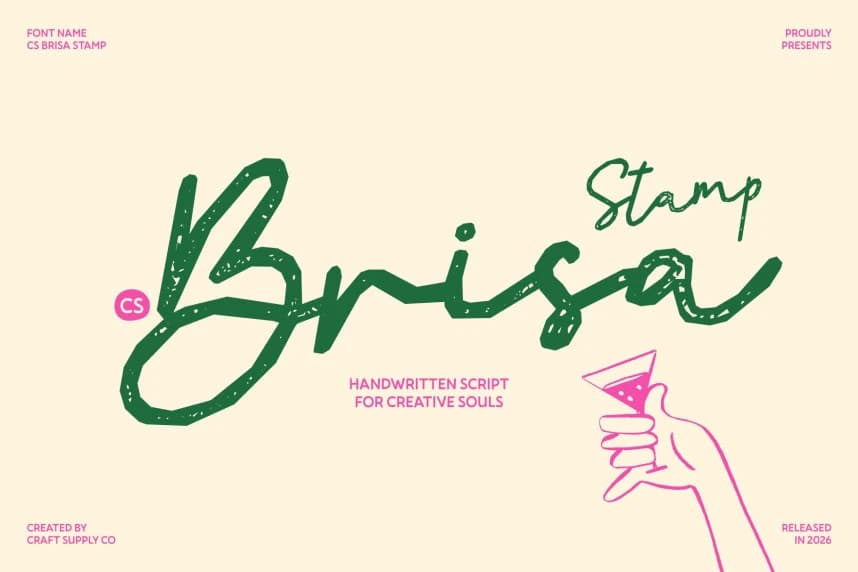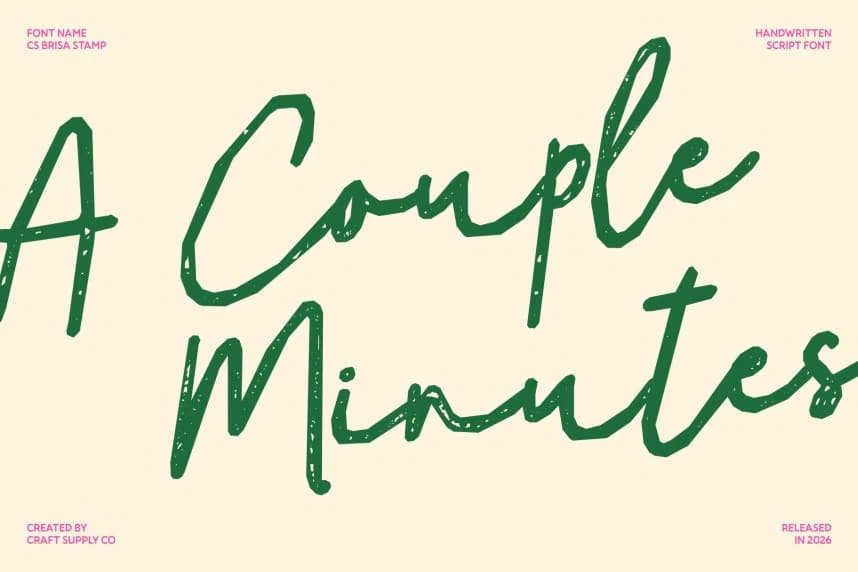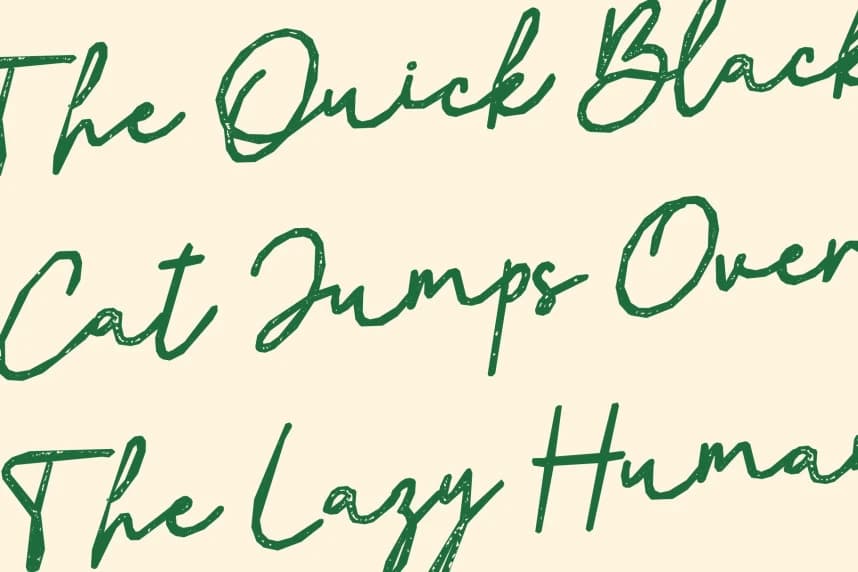
CS Brisa Stamp Font
CS Brisa Stamp Font – Grace in Motion with Textured Timeless Style Monoline Script Font with Flowing Elegance. This is an elegant monoline script font defined by smooth, flowing lines and a refined rhythm.